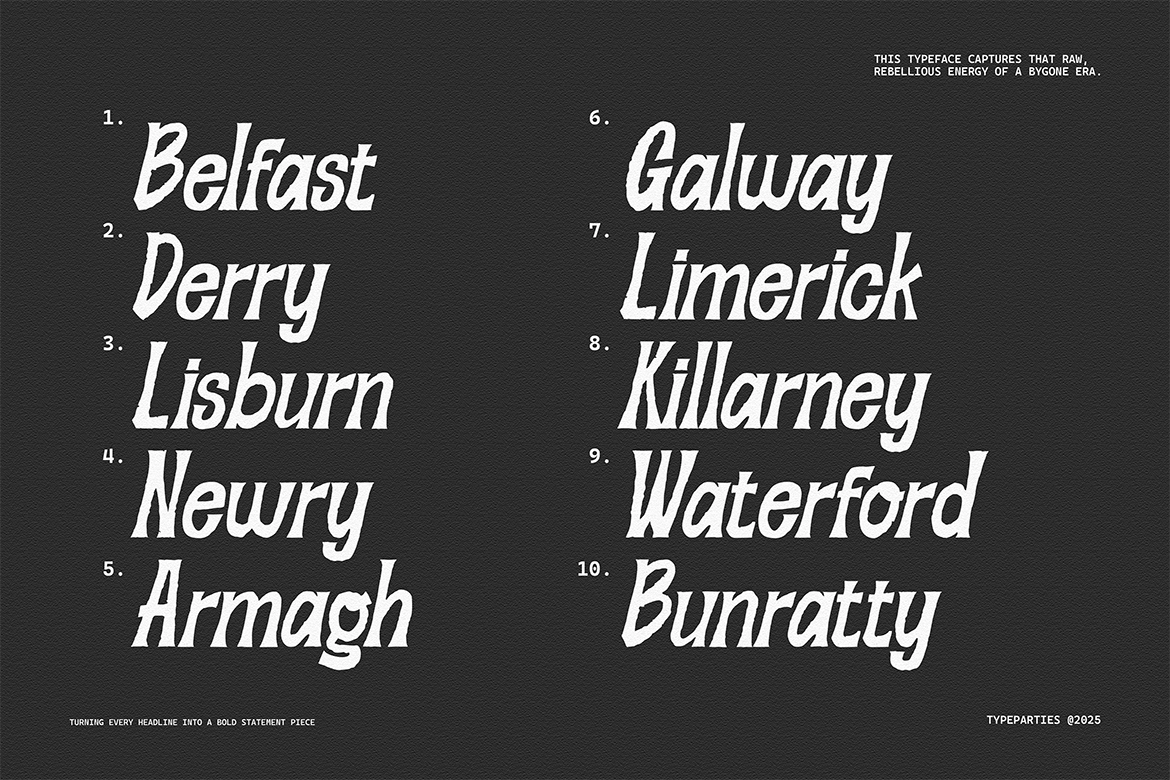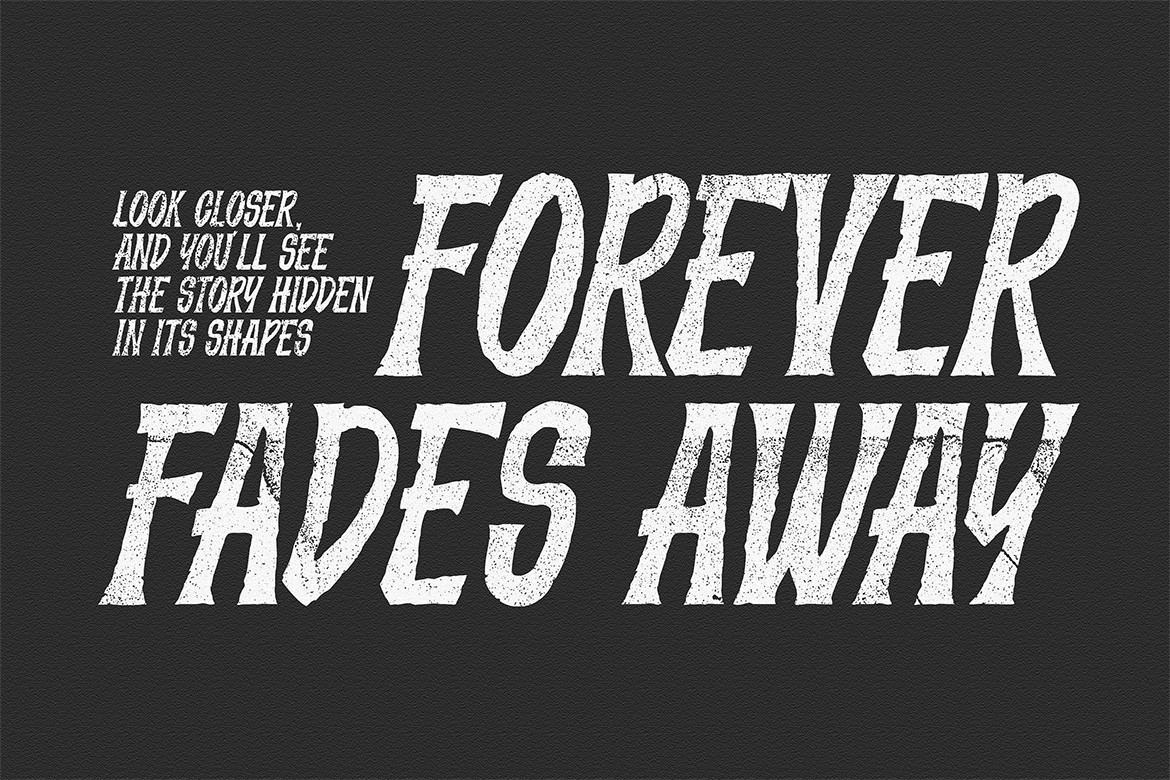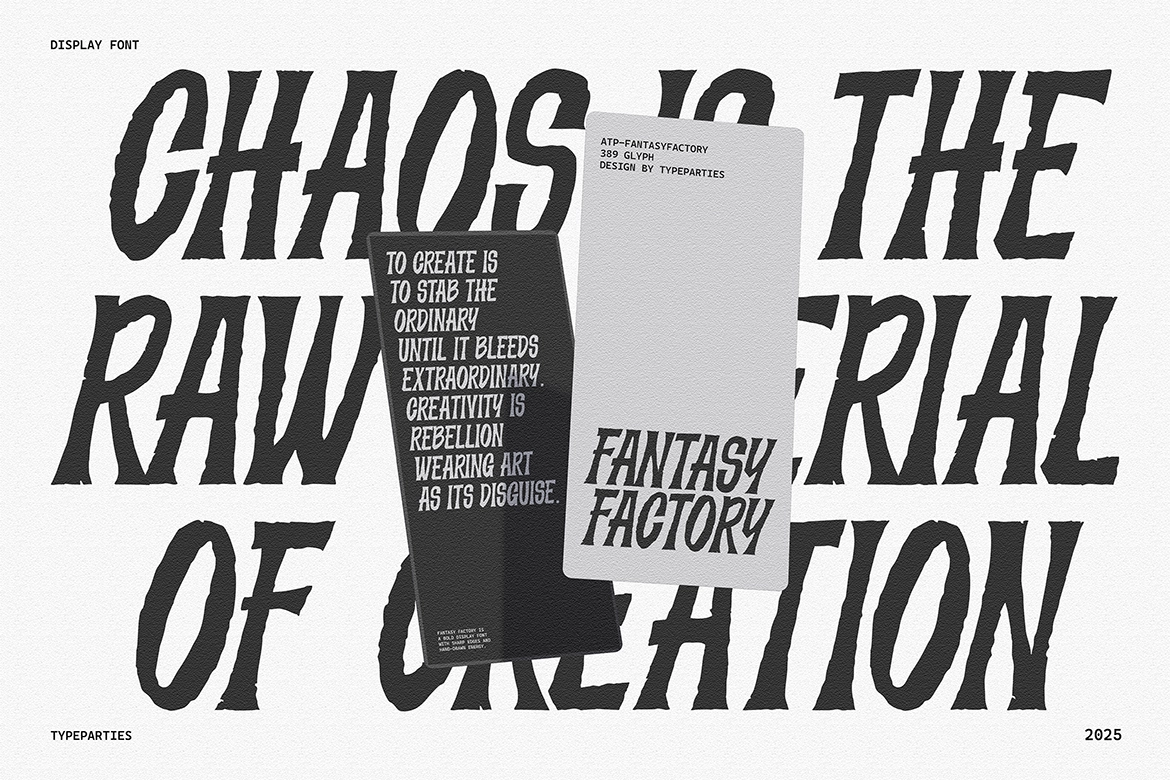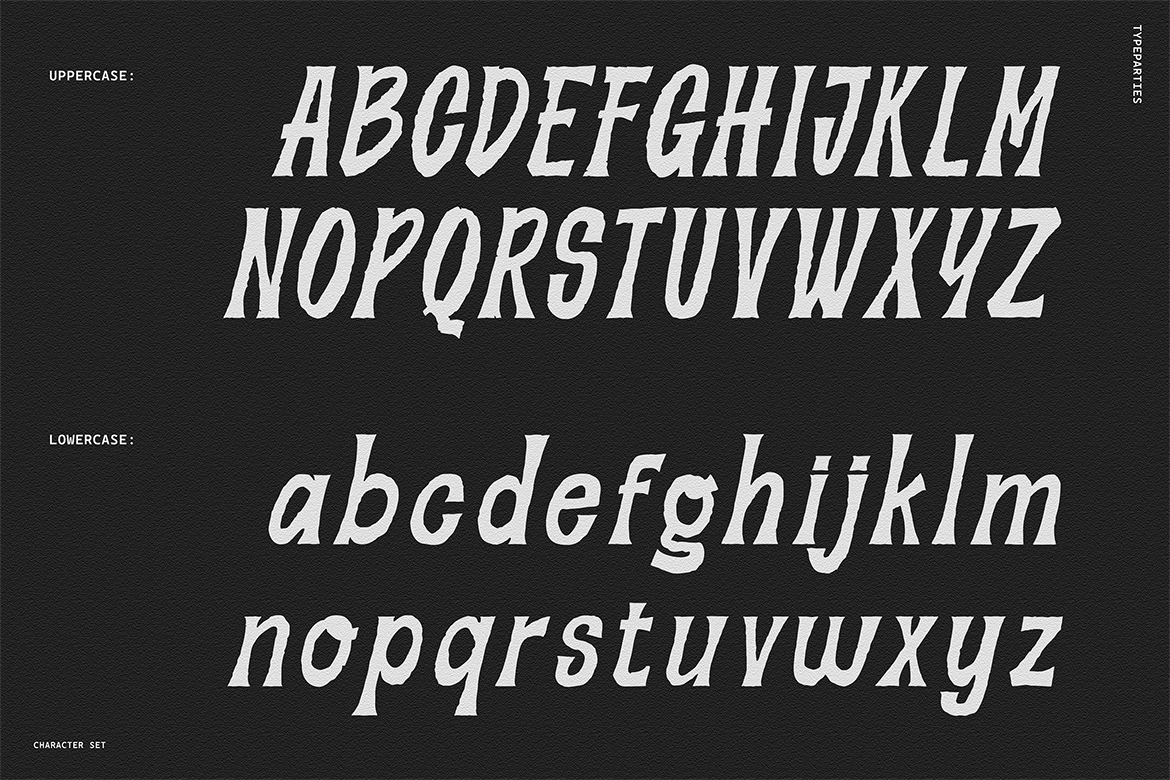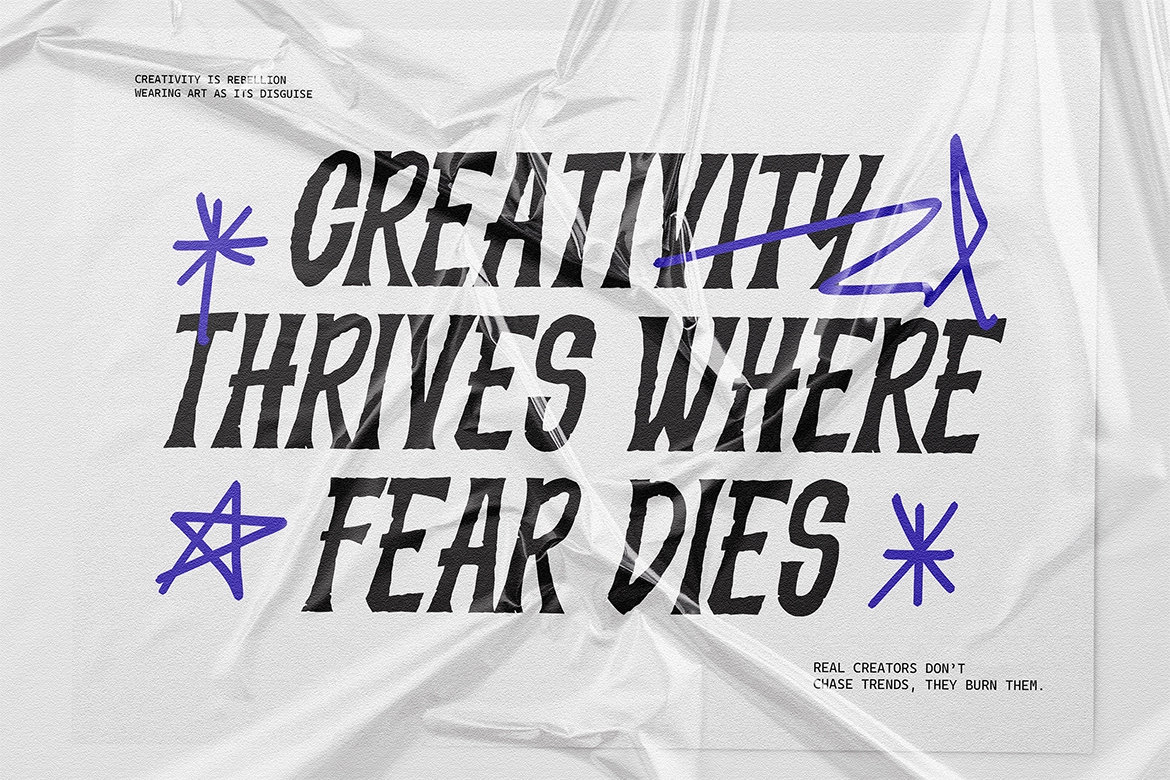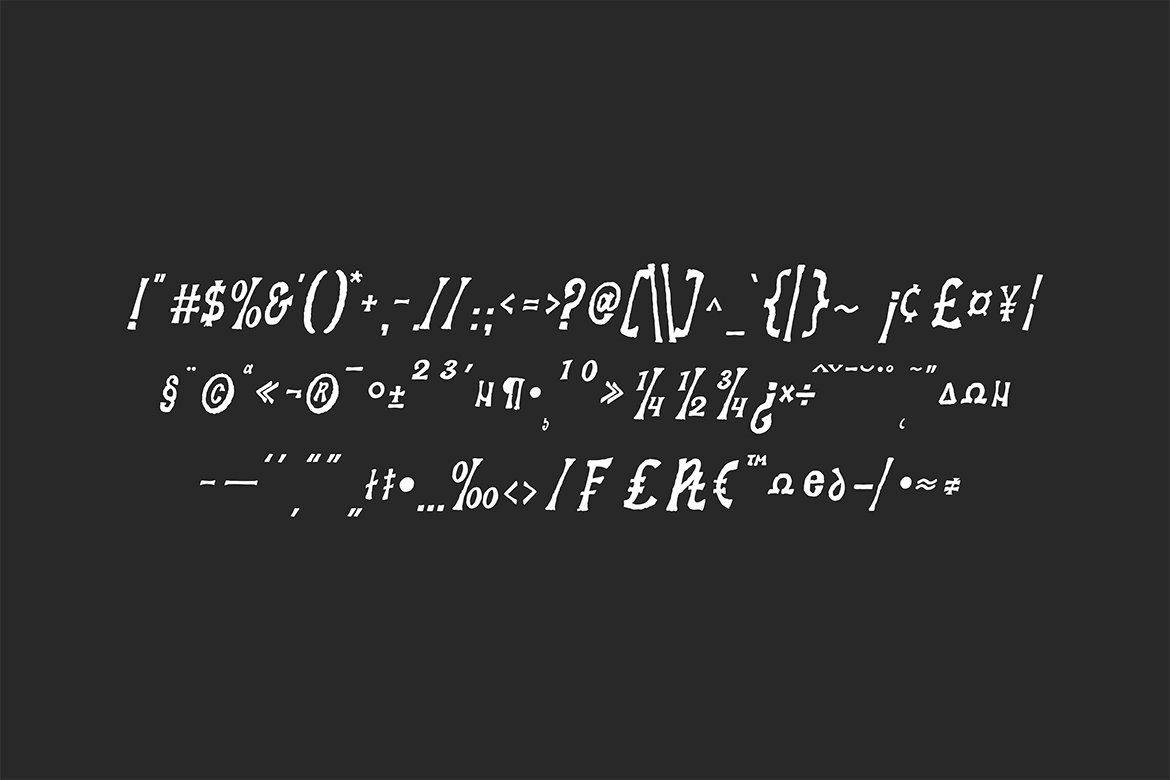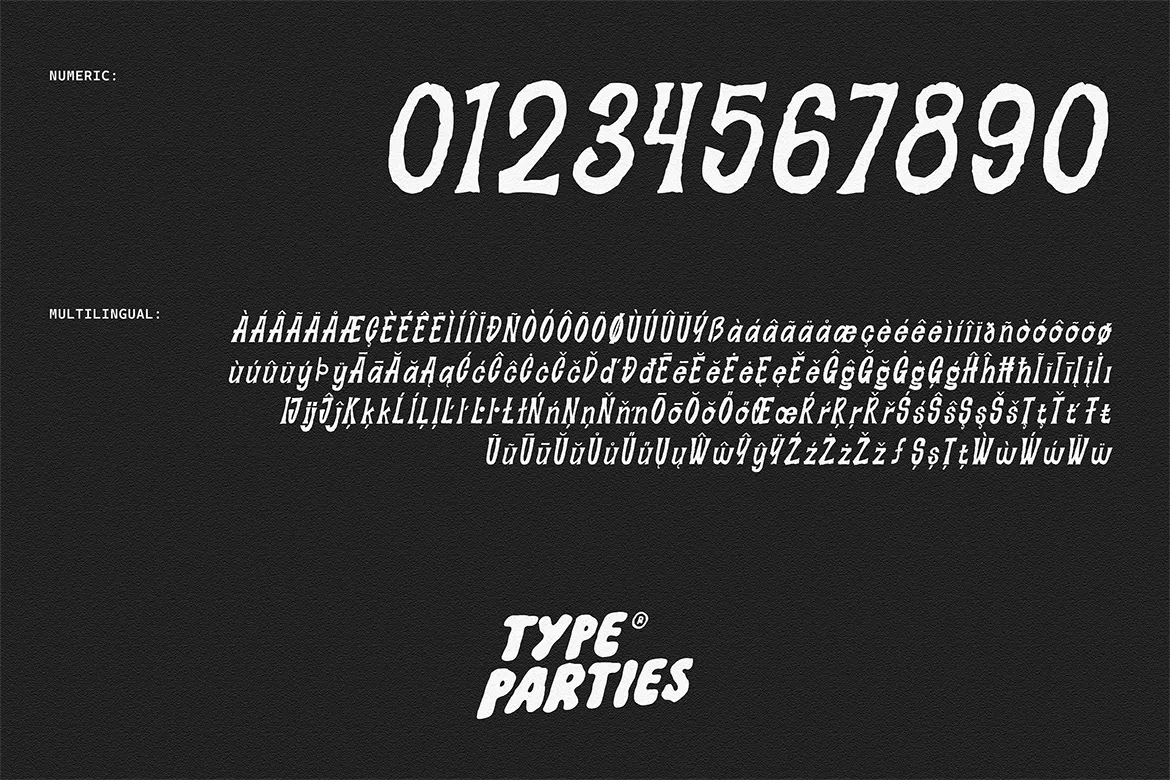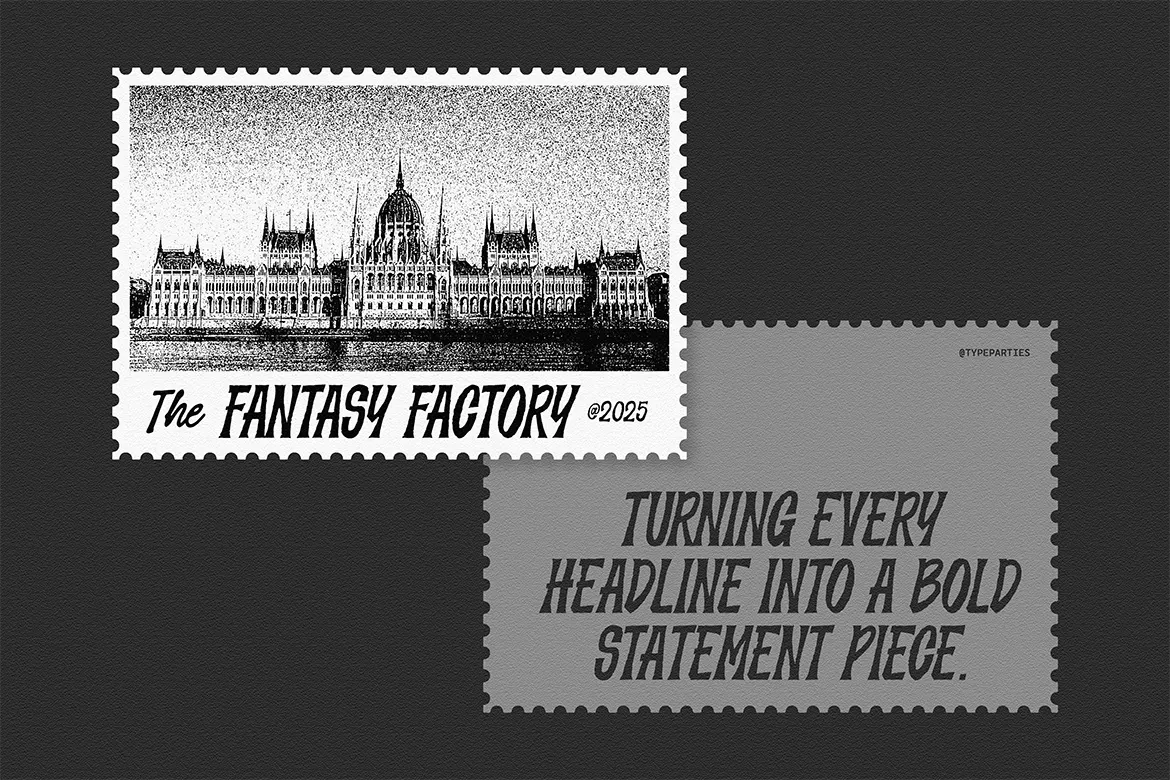
FantasyFactory - Rough Display Font
Fantasy Factory was born from the gritty charm of retro poster design. Inspired by the bold, hand-painted letters plastered across old concert halls, movie theaters, and underground clubs, this typeface captures that raw, rebellious energy of a bygone era. Every stroke is slightly imperfect—like ink bleeding on paper or brush bristles dragging on rough surfaces—bringing back the tactile spirit of vintage print. Designed to echo the psychedelic posters of the 70s and the rock ‘n’ roll flyers that lit up city streets, Fantasy Factory is more than a font; it’s a time machine. It doesn’t whisper, it shouts—turning every headline into a bold statement piece.